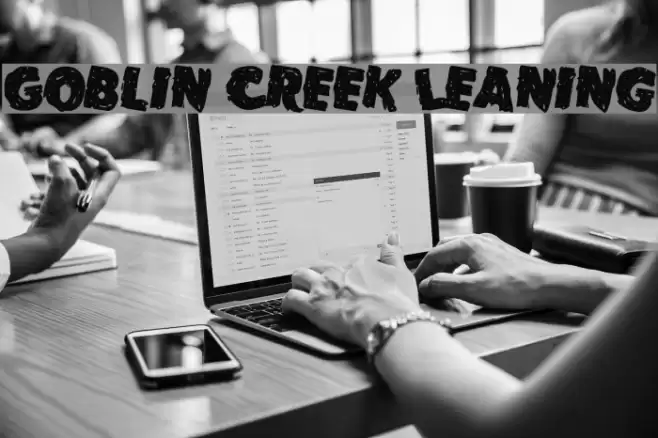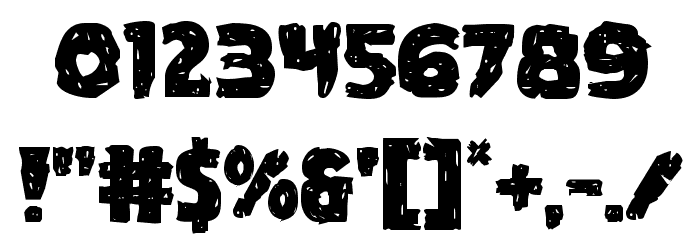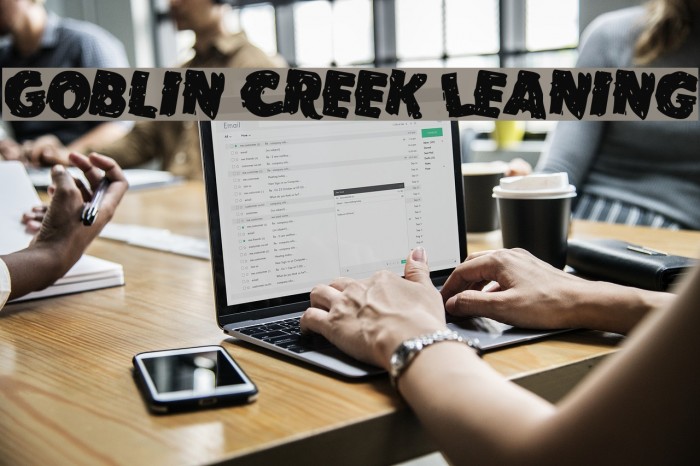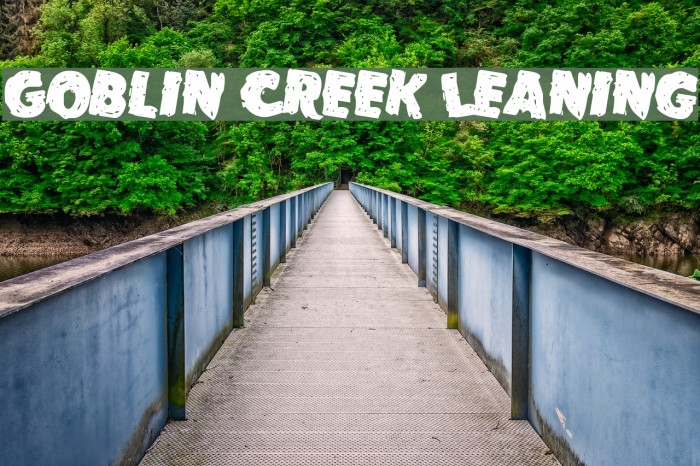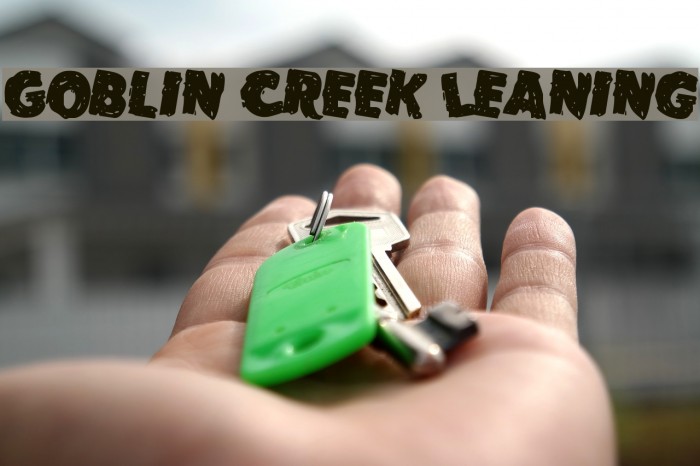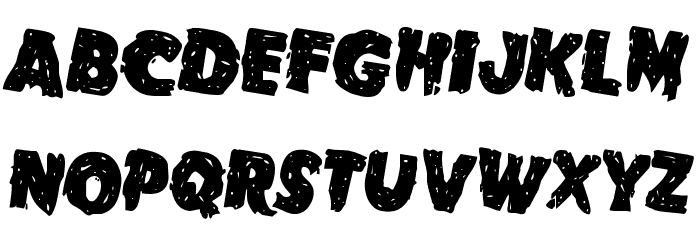
Goblin Creek Leaning Font
Goblin Creek Leaning Description
This font features a bold and playful design with a leaning, irregular style that gives it a whimsical and dynamic appearance. The characters are filled with a distressed texture, adding a rugged and adventurous feel. The uppercase and lowercase letters maintain a consistent style, with exaggerated curves and angles that enhance its quirky personality. The numbers and special characters follow the same design principles, ensuring a cohesive look across all elements. This font is ideal for projects that require a fun and eye-catching typeface.
A bold, playful font with a leaning, distressed style and quirky personality from Horror fonts.
- Proposed Projects: Perfect for children's book covers, playful posters, Halloween-themed designs, and adventurous branding projects.